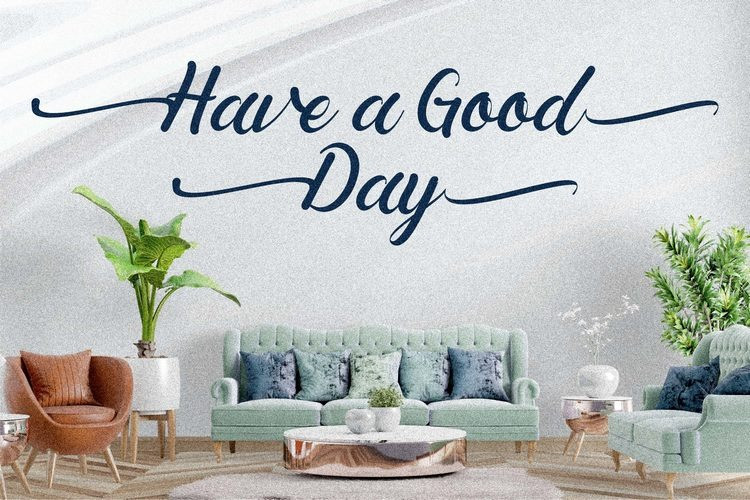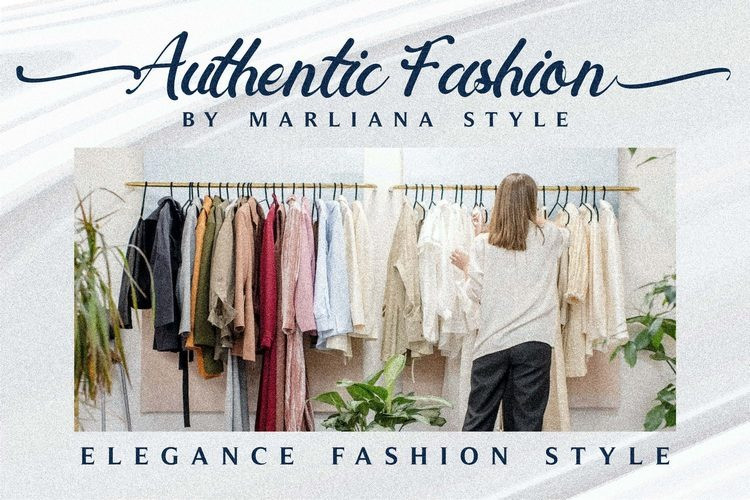
Tropical Leaves Calligraphy Font
Tropical Leaves is great for unique branding, photo overlays, watermarks, greeting cards, posters, business cards, invitations, weddings, photography, fashion, clothing, letters, stationery, etc. A wide variety of swashes (a-z), alternate (a-z), ligatures, and multilingual support are included so you can give your logo or name a hand calligraphic look.